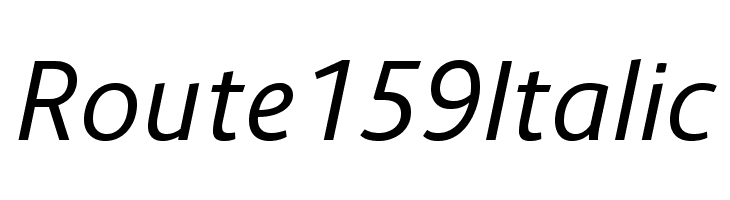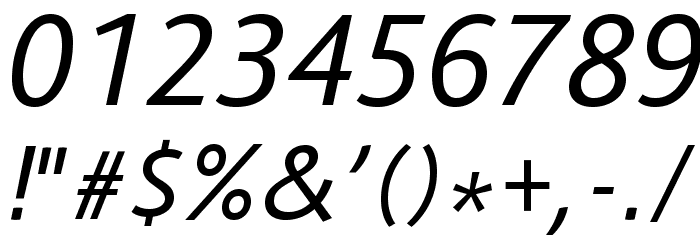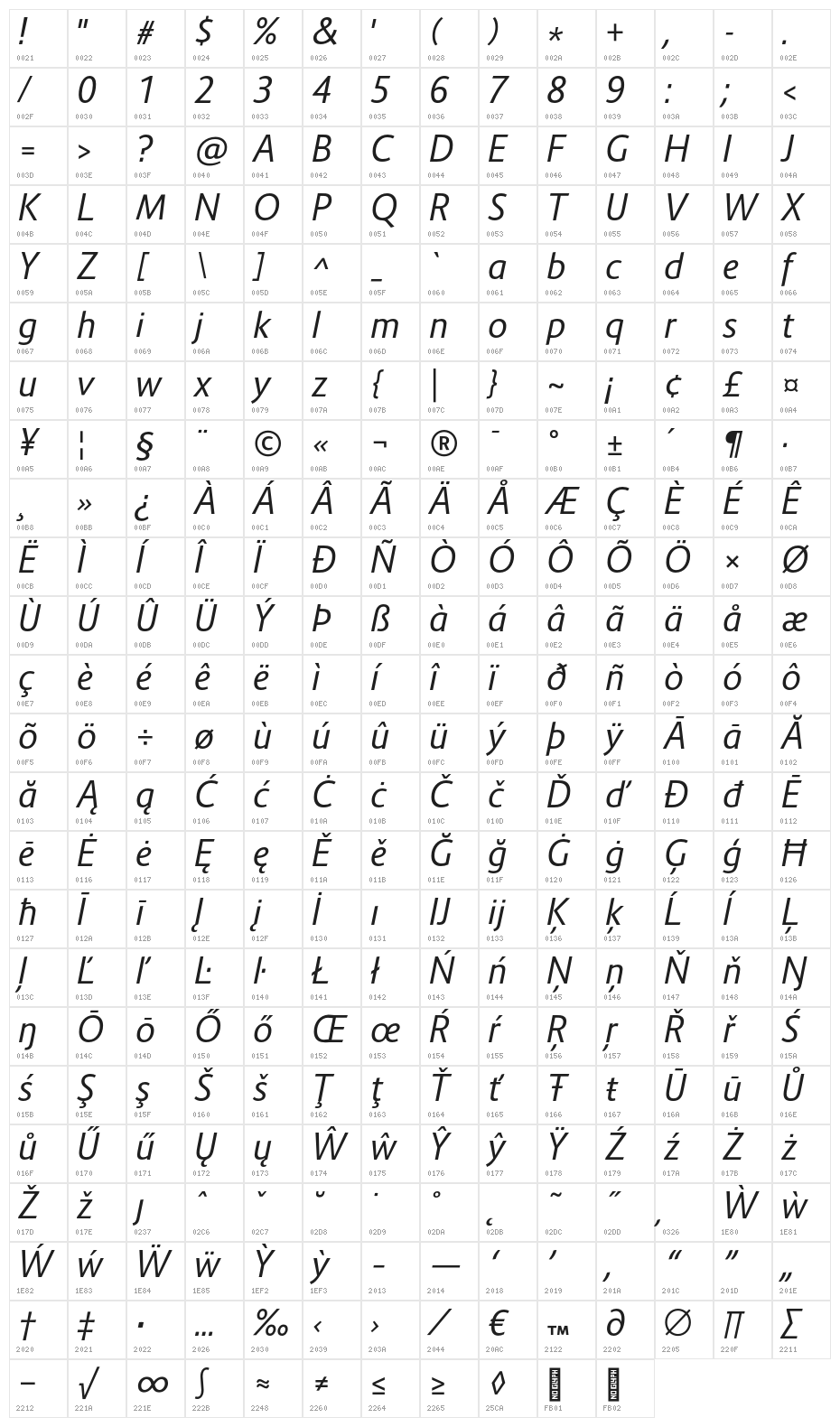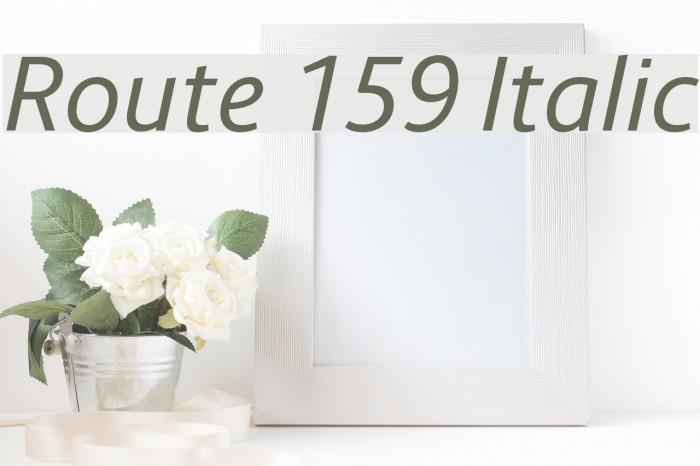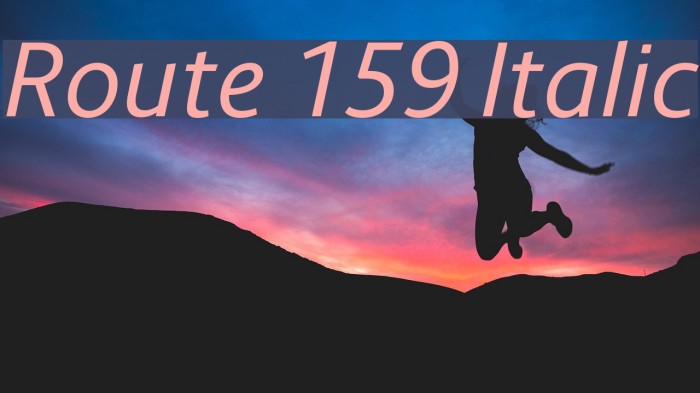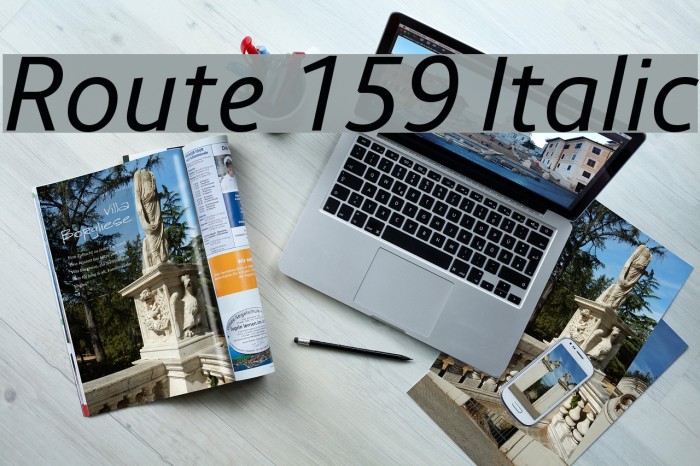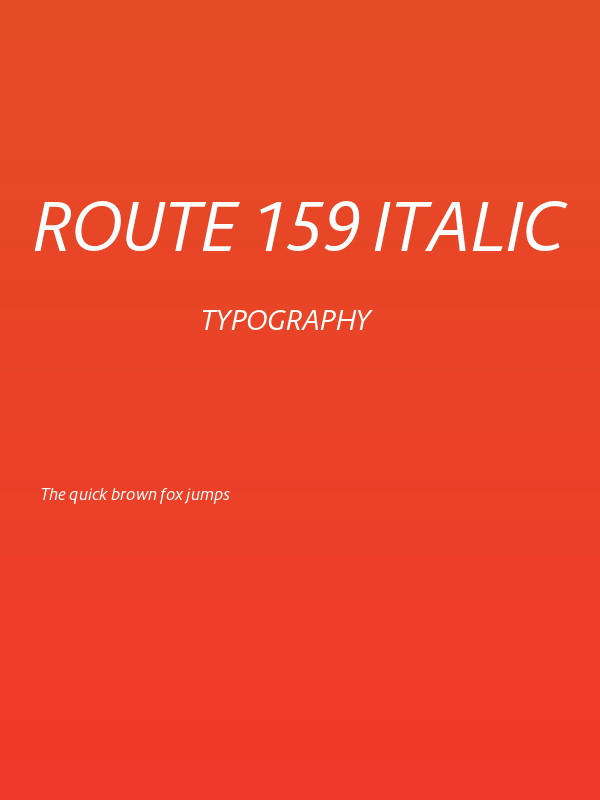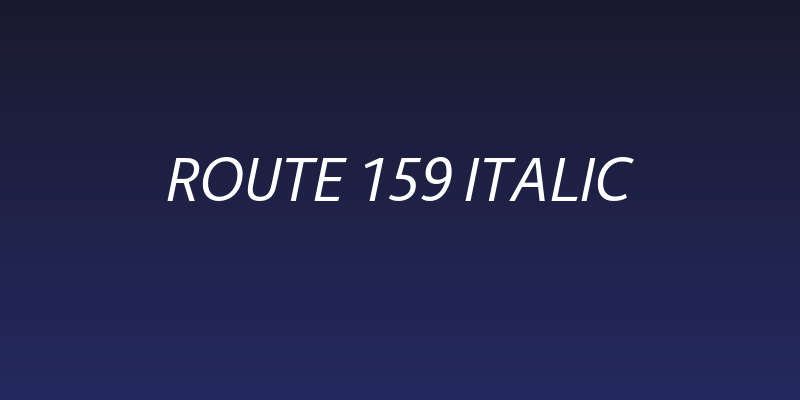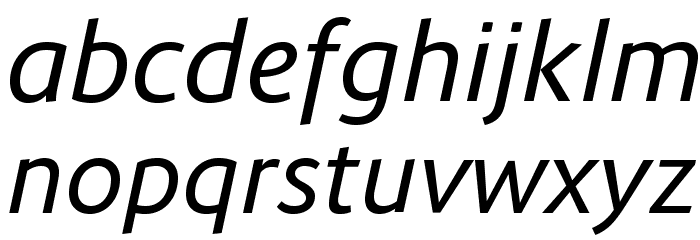
Route 159 Italic Font
Route 159 Italic Description
This font presents a sleek and modern aesthetic with a subtle italic slant, giving it a dynamic and forward-moving appearance. The characters are clean and well-defined, with a consistent stroke width that maintains readability across various sizes. The uppercase letters are slightly taller than the lowercase, providing a balanced and proportional look. Numbers are clear and distinct, making them suitable for both text and numerical data. The special characters are designed to complement the overall style, ensuring uniformity throughout. This font is versatile, suitable for both digital and print media, and can be used in a variety of design contexts.